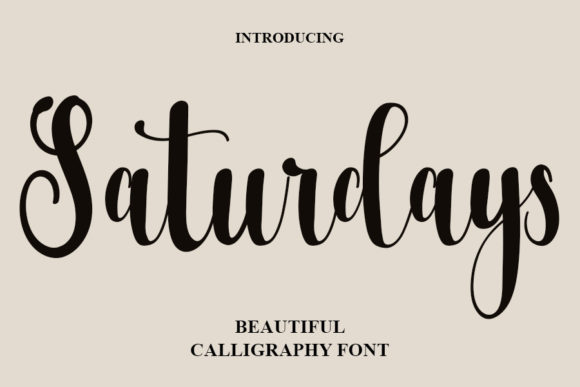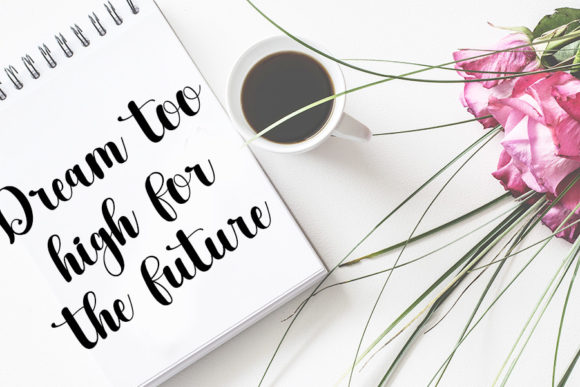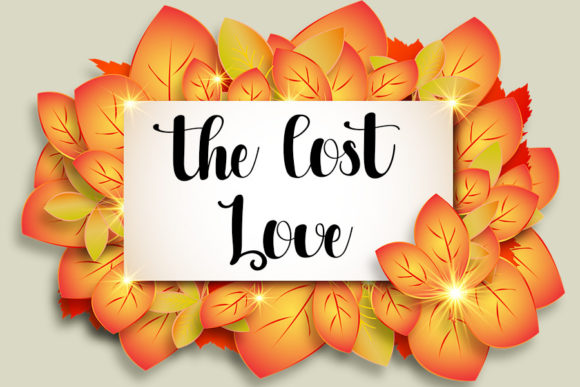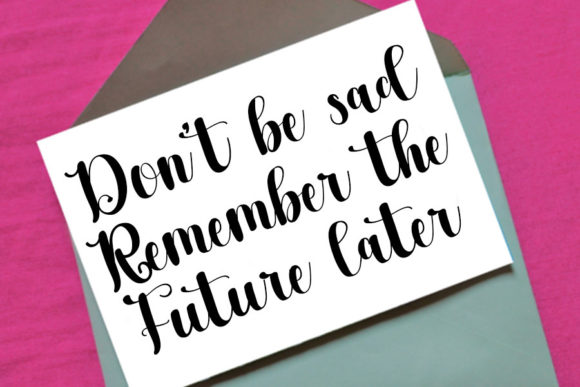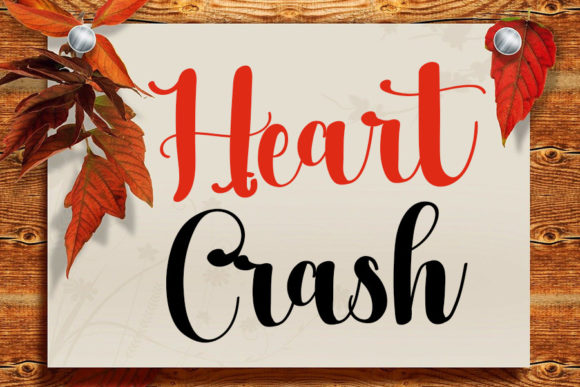
Saturdays Font
“Saturdays” emerges as a stylish handwritten font, exuding a contemporary ambiance while embodying impeccable form. Rooted in the timeless elegance of classic calligraphy, it effortlessly blends tradition with modernity. With a finely balanced thickness and delicacy, and a diverse range of strokes, this font was meticulously crafted to elevate the beauty of your projects.
Visualize “Saturdays” as a brush that gracefully sweeps across your designs, leaving behind an air of sophistication. Its contemporary twist infuses new vitality into the classic calligraphic style, resulting in a visual masterpiece that commands attention. As you weave this font into your projects, you’ll witness a metamorphosis where your concepts evolve into captivating visual stories.
The allure of “Saturdays” transcends mere visual appeal; it embodies a sense of timeless refinement. Its handwritten strokes emanate authenticity, transforming your designs into more than just visual elements – they become reflections of artistry and craftsmanship. Each character contributes to the intricate tapestry of your creative vision.
“Saturdays” becomes a versatile tool in your design arsenal. Its adaptability allows it to seamlessly integrate with a variety of styles, themes, and purposes. Whether for branding, headlines, invitations, or digital graphics, this font enhances the resonance of your message.
In a world where design marries aesthetics with depth, “Saturdays” becomes your conduit for crafting designs that resonate on multiple levels. Let its stylish strokes be the brushstrokes that elevate your creations, infusing them with a touch of contemporary elegance. Embrace the artistic essence of “Saturdays” and watch as it transforms your projects into captivating showcases of modern calligraphic artistry, leaving an indelible mark on all who engage with them.